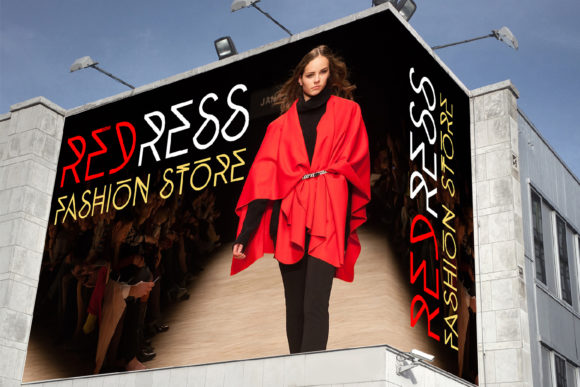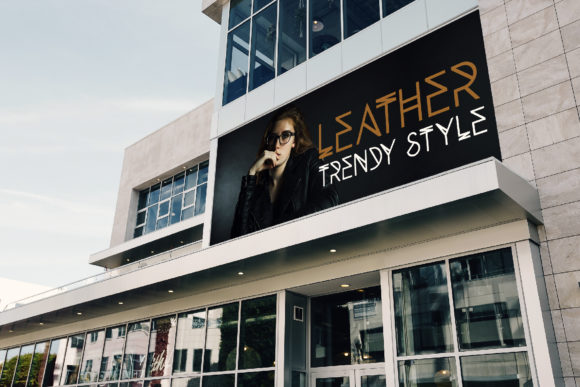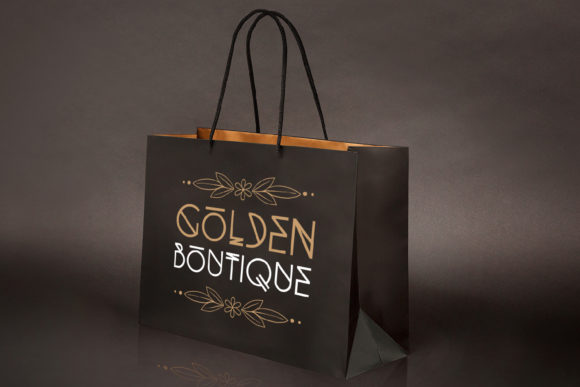
Unleash the Magic of Jamur Font
Have you ever stared at a blank canvas, feeling like a spark of creativity is just waiting to ignite? That’s exactly what happened to us when we first laid eyes on Jamur Font – a futuristic and incredibly interesting display font that’s about to revolutionize the way you design.
Imagine a font that’s as playful as it is sophisticated, effortlessly bringing your designs to life with its unique and eye-catching style. Jamur Font is designed to make a statement, and with its versatility and simplicity, it’s the perfect addition to any project. Whether you’re a seasoned designer or just starting out, Jamur Font is an absolute game-changer – and we can’t wait to share its magic with you.
Jamur Font Key Features
- Font Family: Jamur Font is a sans-serif typeface designed for digital use, with a clean and modern aesthetic.
- Character Set: Includes a wide range of characters, including Latin, Cyrillic, and Greek alphabets, as well as various symbols and punctuation marks.
- Unique Characteristics: Jamur Font features a unique blend of geometric and organic elements, resulting in a distinctive and recognizable visual identity.
- Font Weight and Style: Offers multiple font weights, from light to bold, as well as italic and regular styles, providing flexibility for various design applications.
Designer Review: Jamur Font
When I first laid eyes on Jamur Font, I was immediately drawn to its unique and quirky design. The font’s eclectic style, with its irregular shapes and bold lines, is perfect for those looking to add some personality to their designs. ✨ The font’s playfulness and charm make it an excellent choice for creative projects, such as illustrations, graphic novels, and even children’s books.
The Jamur Font family includes multiple weights and styles, offering a wide range of options for designers to choose from. ✨ The font’s consistency across different weights and styles is impressive, making it easy to use in various design contexts. Additionally, the font’s OpenType features allow for advanced typographic effects, such as ligatures and swashes, which can add an extra layer of sophistication to designs.
While the Jamur Font has many strengths, there are a few areas where it falls short. ⚠️ One of the main limitations is its relatively small character set, which may not be suitable for designs that require a wide range of languages or characters. Additionally, the font’s irregular shape may not be ideal for body text, as it can be difficult to read in large blocks of text.
- May not be suitable for body text due to irregular shape
- Relatively small character set
Overall, the Jamur Font is a great choice for designers looking to add some creativity and whimsy to their projects. While it may have some limitations, its unique design and advanced features make it a valuable addition to any design library.
Tips for Getting the Most Out of Jamur Font
Here are some tips to get the most out of Jamur Font:
- Pair Jamur Font with other fonts to create a unique typography combination.
- Use Jamur Font in creative and unexpected ways, such as for headings or titles.
Some common use cases for Jamur Font include:
- Graphic design projects, such as posters